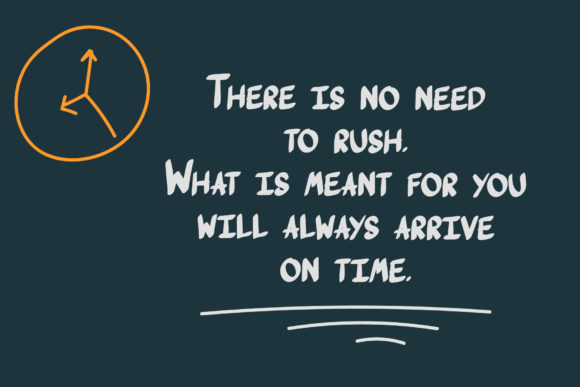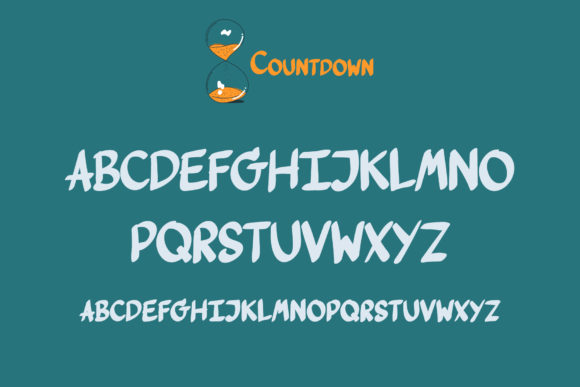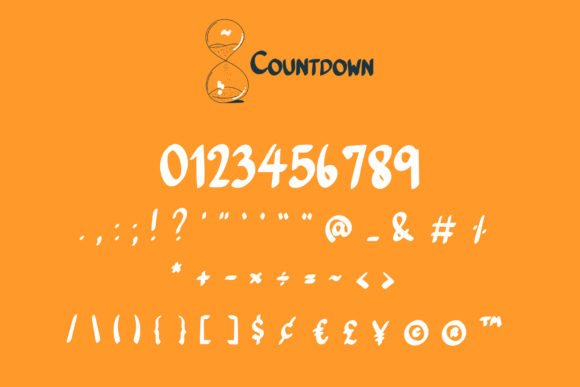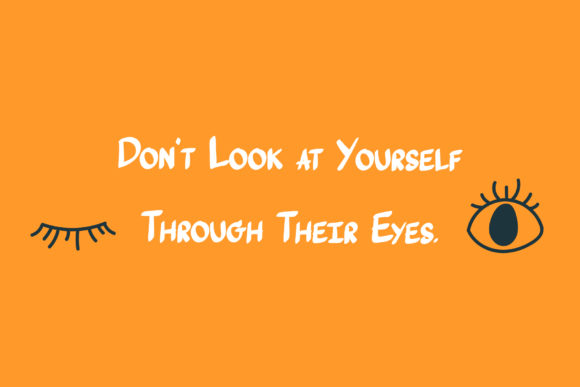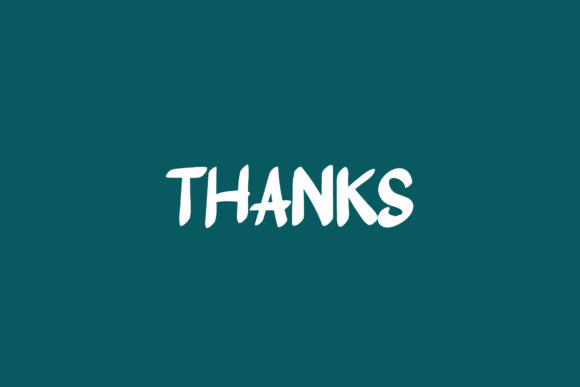
Introducing Countdown Font: The Ultimate Handwritten Delight
Are you on the hunt for a font that exudes warmth, approachability, and a dash of playfulness? Look no further than Countdown Font, a beautifully crafted handwritten font that’s sure to capture your heart. In this article, we’ll dive into the wonderful world of Countdown Font, exploring its unique features, uses, and benefits for designers and crafters alike.
The Story Behind Countdown Font
Countdown Font is a lovingly handcrafted font, designed to bring a touch of personality to your designs. Its creator’s attention to detail and passion for typography have resulted in a font that’s not only aesthetically pleasing but also remarkably versatile. Whether you’re working on a project that requires a friendly, approachable tone or a bold, eye-catching headline, Countdown Font is the perfect choice.
What Makes Countdown Font So Special?
So, what sets Countdown Font apart from other fonts out there? Here are just a few of its standout features:
- Casual Charm: Countdown Font boasts a delightfully casual charm that makes it perfect for designs that need to feel down-to-earth and relatable.
- Readability: With its clear, flowing script, Countdown Font is incredibly easy to read, even at smaller sizes.
- Versatility: This font is a chameleon, adapting seamlessly to a wide range of design contexts, from busy backgrounds to standalone headlines.
Using Countdown Font in Your Designs
Countdown Font is an incredibly versatile font that can be used in a multitude of design applications. Here are a few ideas to get you started:
- Headlines and Titles: Use Countdown Font to create bold, eye-catching headlines that demand attention.
- Body Text: Its readability makes Countdown Font an excellent choice for body text, particularly for designs that require a friendly, approachable tone.
- Signage and Posters: Countdown Font’s casual charm makes it perfect for signage and posters that need to feel welcoming and engaging.
- Branding and Packaging: Use Countdown Font to add a touch of personality to your brand’s packaging and marketing materials.
Tips for Getting the Most Out of Countdown Font
To help you make the most of Countdown Font, here are a few expert tips:
- Experiment with Colors: Countdown Font looks stunning in a range of colors, so don’t be afraid to experiment and find the perfect hue for your design.
- Play with Pairings: Try pairing Countdown Font with other fonts to create a unique and visually appealing typography combination.
- Pay Attention to Size: While Countdown Font is remarkably readable, it’s essential to ensure that your text is large enough to be easily read, particularly for body text.
In conclusion, Countdown Font is a truly special font that’s sure to become a favorite among designers and crafters. Its unique blend of casual charm, readability, and versatility makes it an excellent choice for a wide range of design applications. Whether you’re working on a bold headline or a friendly body text, Countdown Font is the perfect choice. So why wait? Download Countdown Font today and start creating stunning designs that capture your audience’s heart!
Key Takeaways
- Countdown Font is a handcrafted handwritten font with a casual charm.
- It’s incredibly readable and versatile, making it perfect for a range of design applications.
- Use Countdown Font for headlines, body text, signage, posters, branding, and packaging.
- Experiment with colors, pairings, and sizing to get the most out of Countdown Font.